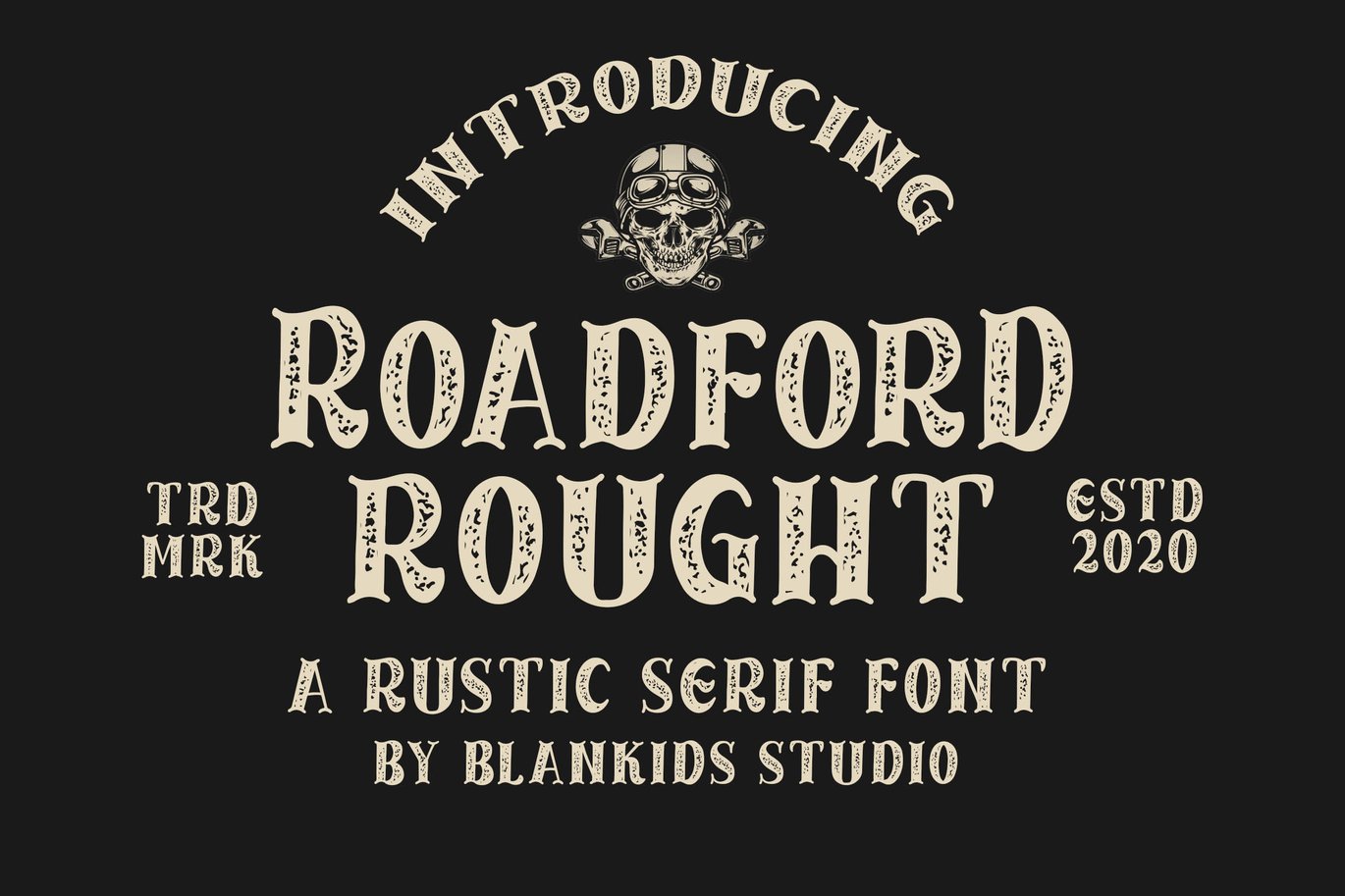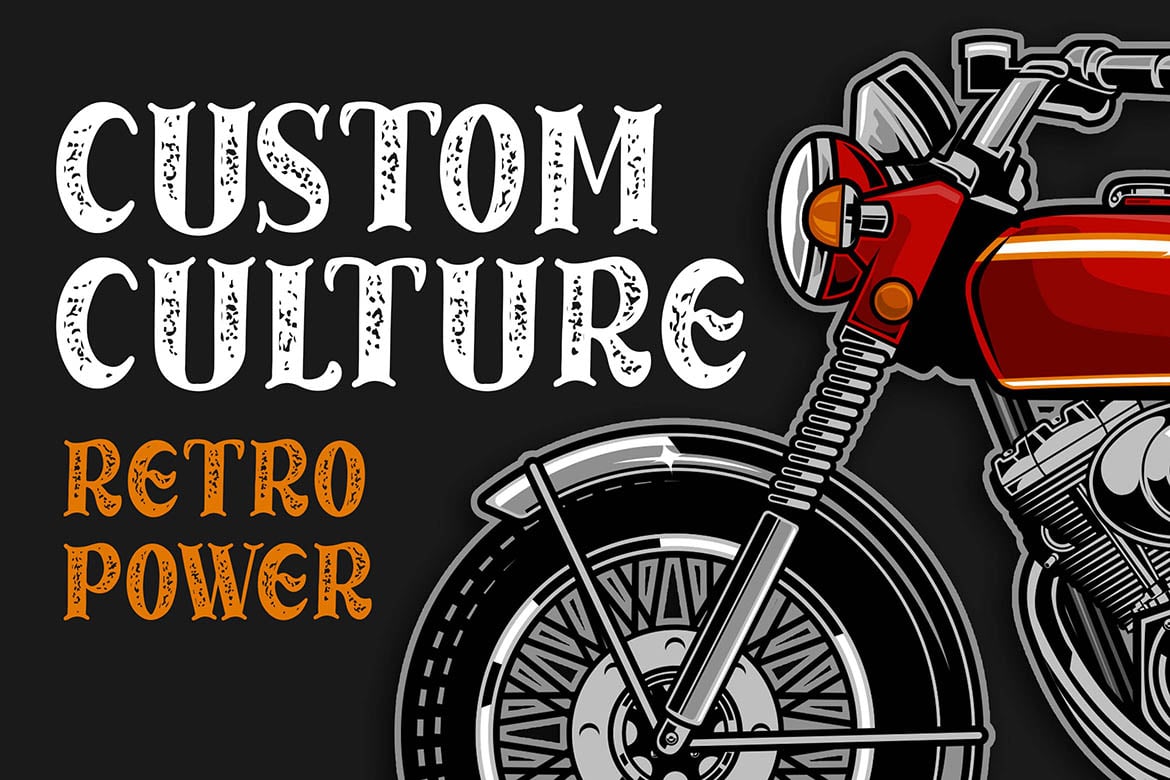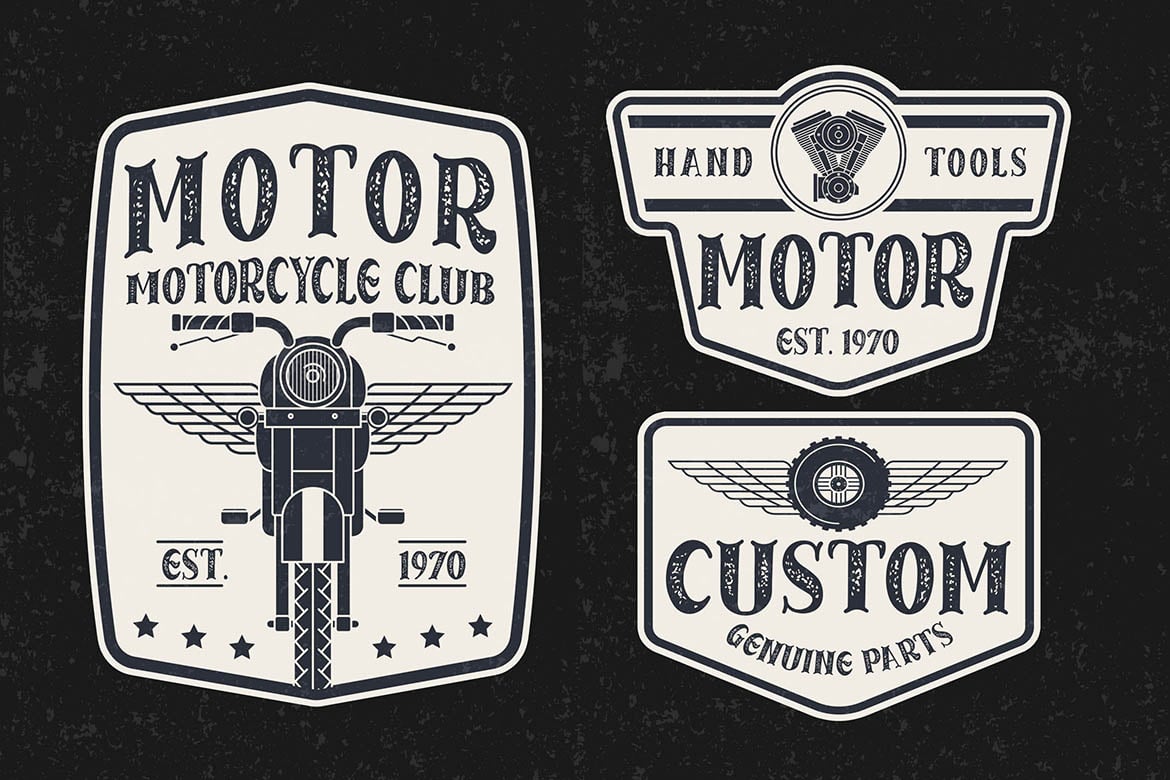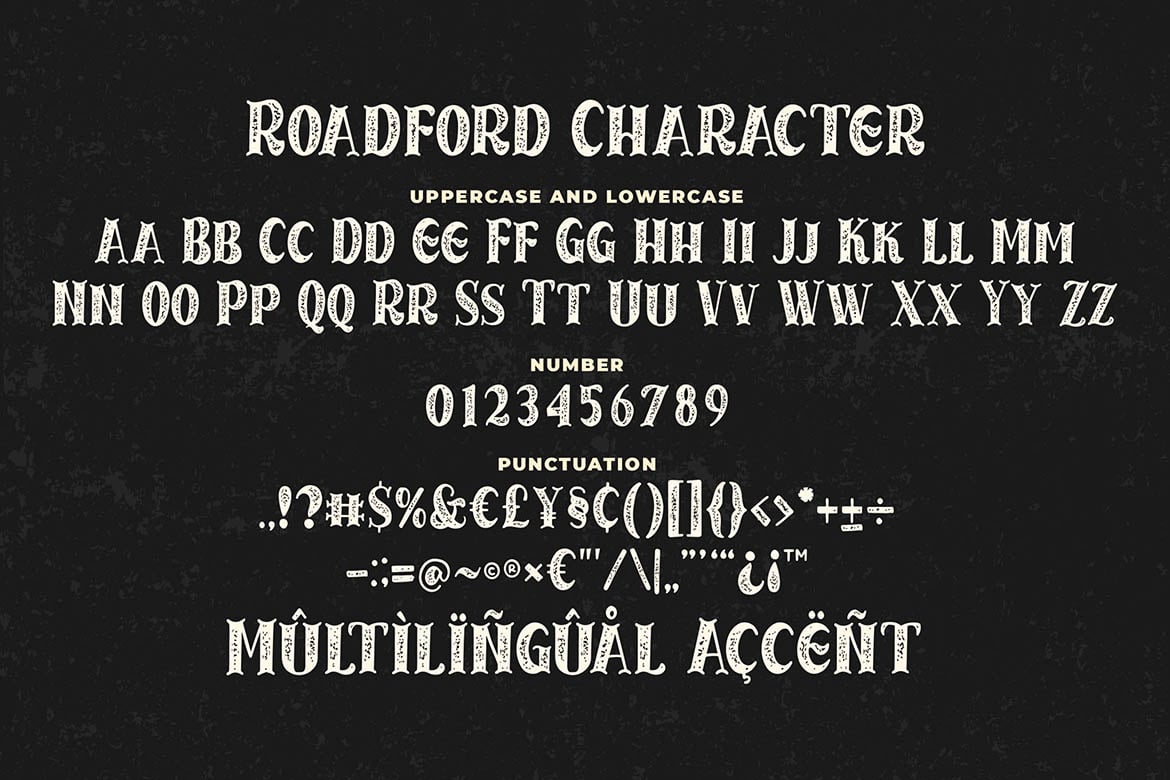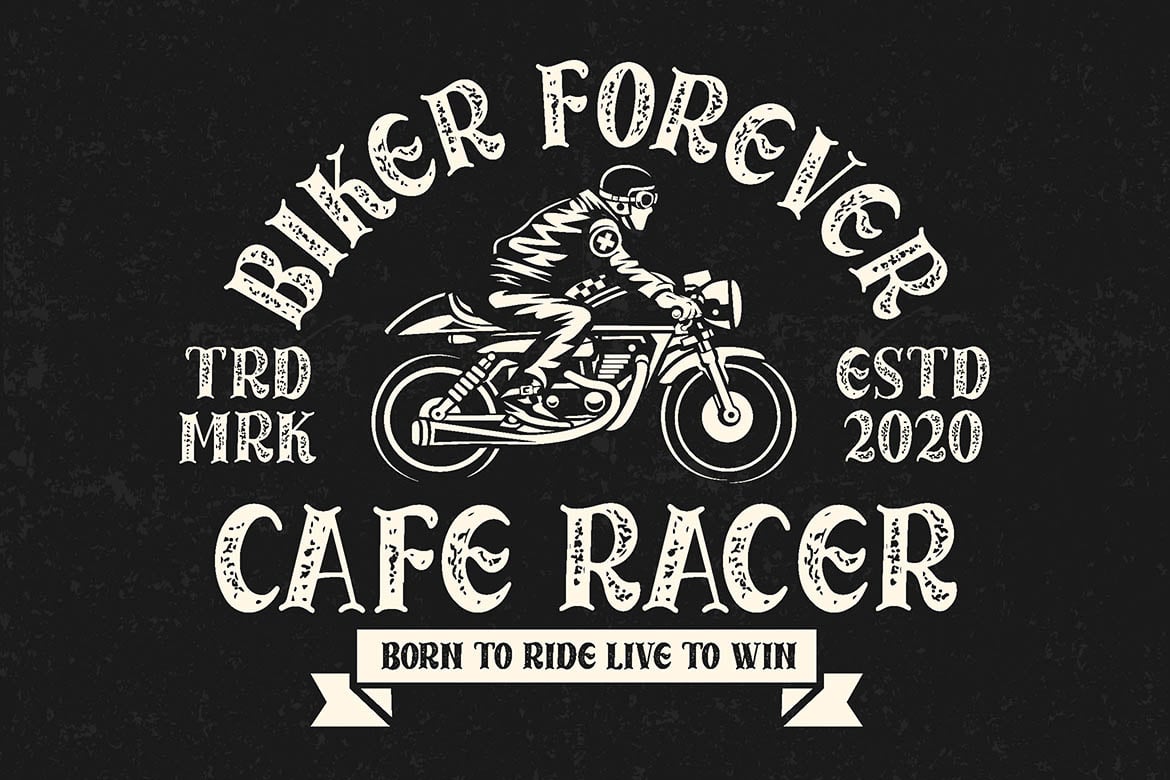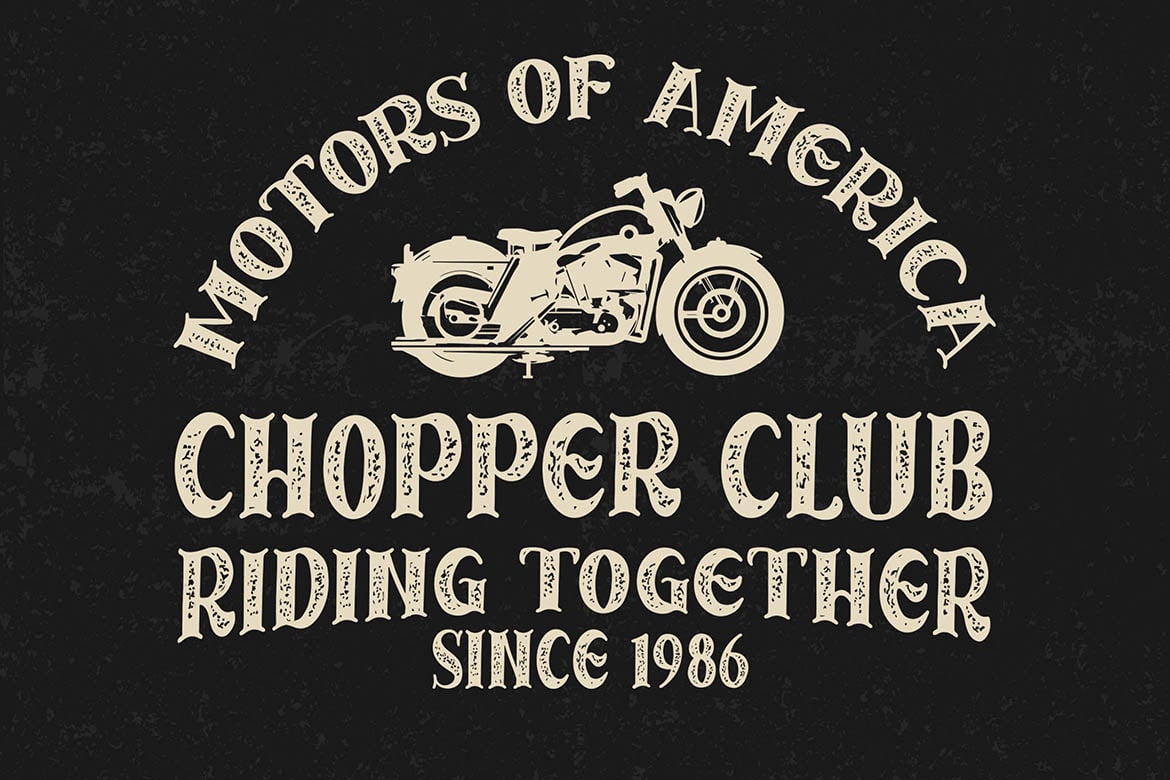
Roadford Rought – Rustic Serif Font
Introducing of our new product the name is Roadford Rought Rustic Serif Font. Roadford Rought inspired by modern vintage poster this font is a fun theme very good for poster, apparel, badge, label, emblem etc
MULTILINGUAL ACCENT :
ØÆøæ¢ÐŒœÁĂÂÀÄĄÅÃǼĆČÇĈĊĎÉĔĚÊËĖÈĘĞĜĢĠĤÍĬÎÏİÌĮĨĴĶĹĽĻĿŃŇŅÑÓŎÔÖÒŐǾÕŔŘŖŚŠŞŜȘŤŢÚŬÛÜÙŰŲŮŨẂŴẄẀÝŶŸỲŹŽŻáăâäàąåãǽćčçĉċďéĕěêëėèęğĝģġĥíîïìįĩĵķĺľļŀńʼnňņñóŏôöòőǿõŕřŗśšşŝșťţŭûüűùųůũẃŵẅẁýŷÿỳźžż